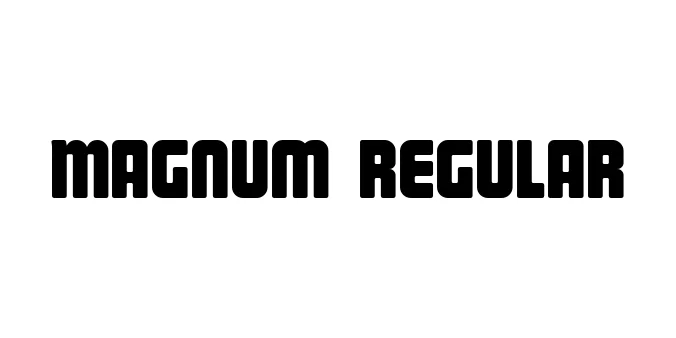
Magnum Regular
Designed by A.S. Meijer
| Font Name | Magnum |
| Category | Display / Sans Serif |
| Designer | A.S. Meijer |
| Similar Fonts | Impact, Compacta, Haettenschweiler, Helvetica Compressed |
Magnum Regular is a bold, impactful display typeface designed to command attention through its heavy geometric strokes and solid presence. This typeface is characterized by its thick, uniform weight and minimal ornamentation, making it an ideal choice for high-impact visual communication. It draws inspiration from the classic industrial sans-serif styles of the mid-to-late 20th century, offering a sense of strength and reliability that is perfect for professional environments and large-scale media.
Historically, fonts like Magnum Regular have been essential in the world of advertising and poster design, where legibility from a distance is a primary requirement. Its clean lines and robust structure ensure that it remains readable even in high-contrast settings or on busy backgrounds. Today, it remains a popular choice for designers looking to create powerful brand identities, compelling movie titles, and eye-catching digital banners that require a modern yet authoritative aesthetic.
Magnum Regular Best Uses
Perfect for creating powerful and attention-grabbing titles for magazines and newspapers.
Ideal for logos and corporate identities that need to convey authority and strength.
High visibility makes it excellent for large-scale marketing materials and event advertisements.
Great for athletic apparel and team signage due to its dynamic and heavy weight.